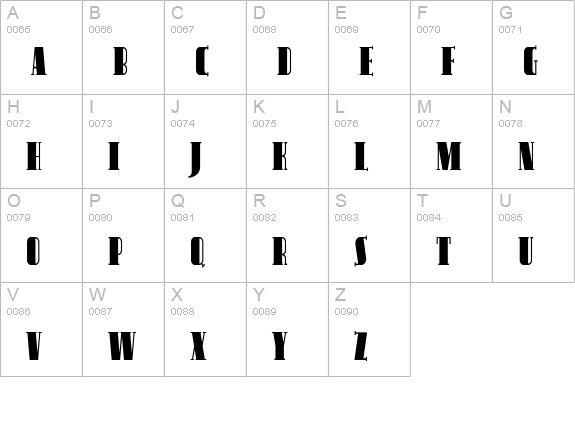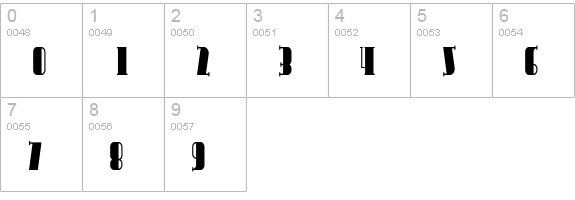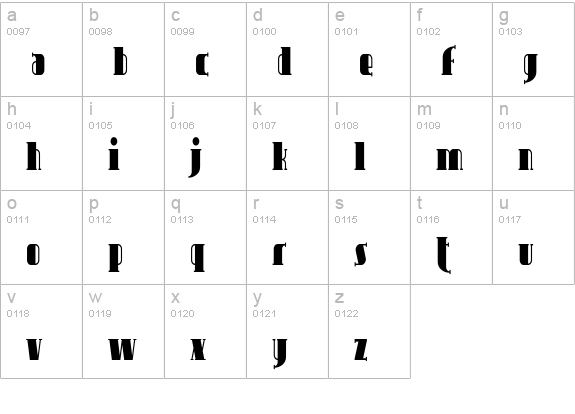
Avondale Cond is a distinctive, condensed-width variant in the Avondale typeface family \xE2\x80\x94 well suited to design and typography projects.
Avondale Cond font is a sleek and modern typeface that exudes sophistication and elegance. With its clean lines and streamlined appearance, Avondale Cond is perfect for conveying a sense of professionalism and style in any design project. This versatile font is ideal for use in a wide range of applications, from branding and advertising to web design and print materials. The best part? Avondale Cond is completely free to download at FontsMarket.com! This means that you can add this beautiful font to your collection without having to spend a penny. Whether you're working on a personal project or a client's design, Avondale Cond is sure to elevate your work and make a lasting impression. Don't miss out on this amazing opportunity to enhance your designs with the timeless charm of Avondale Cond font. Download it for free today at FontsMarket.com and start creating stunning visuals that stand out from the crowd.